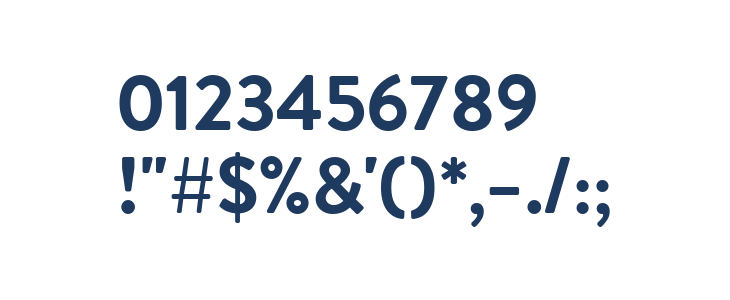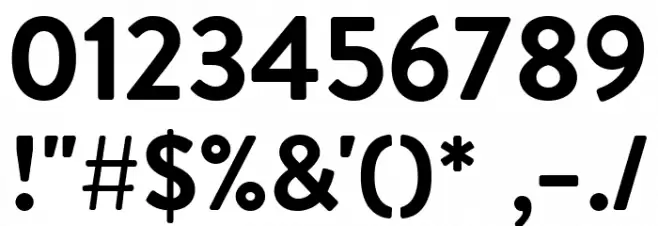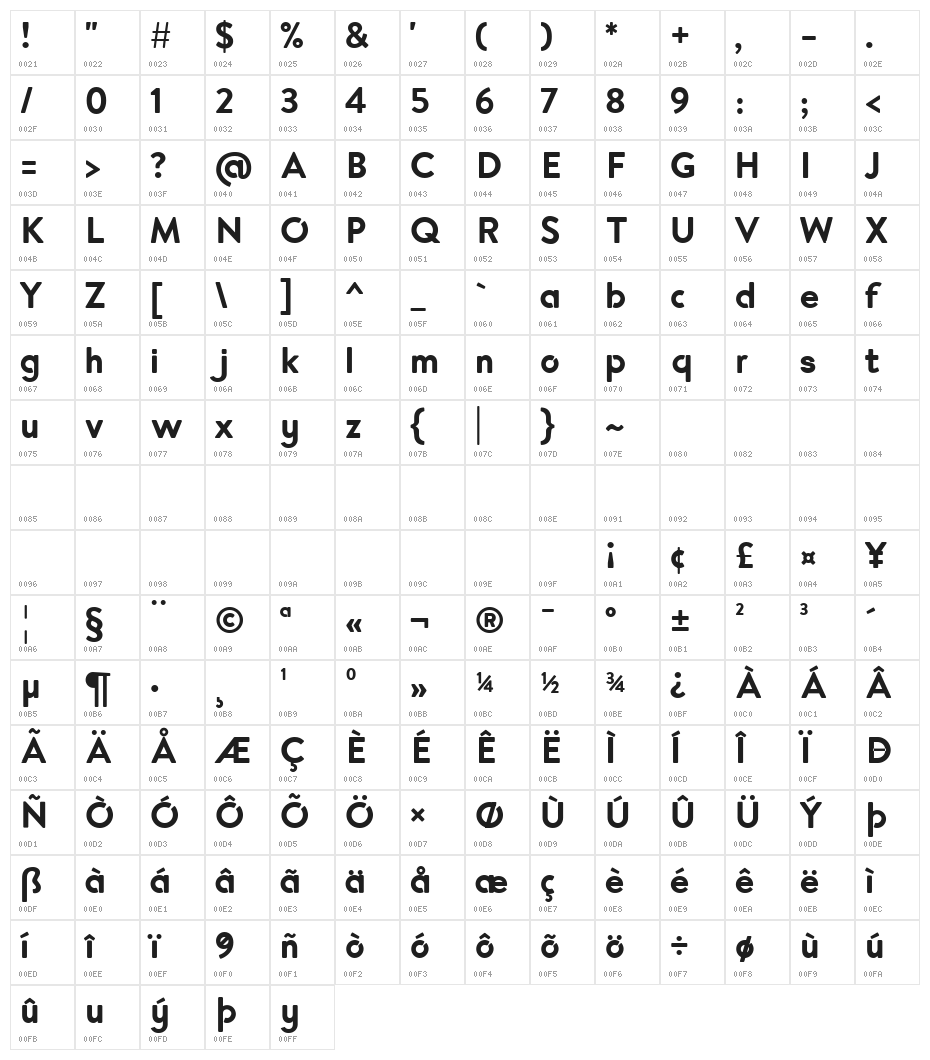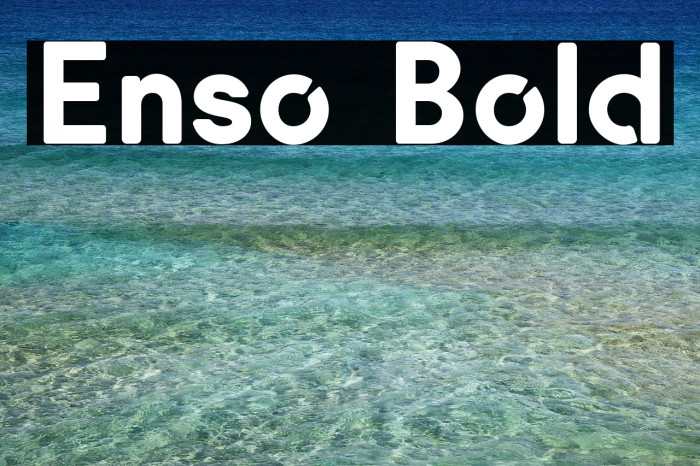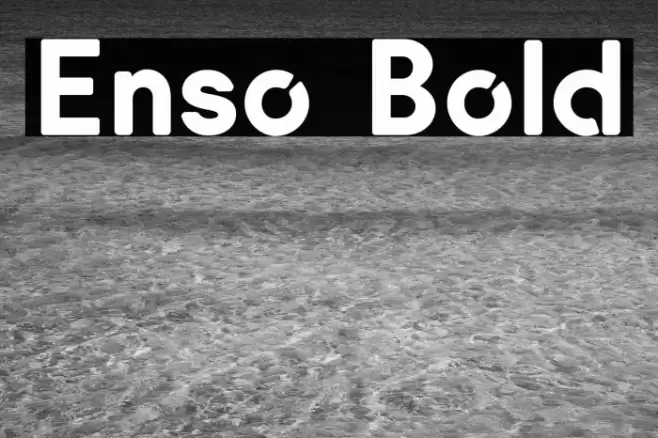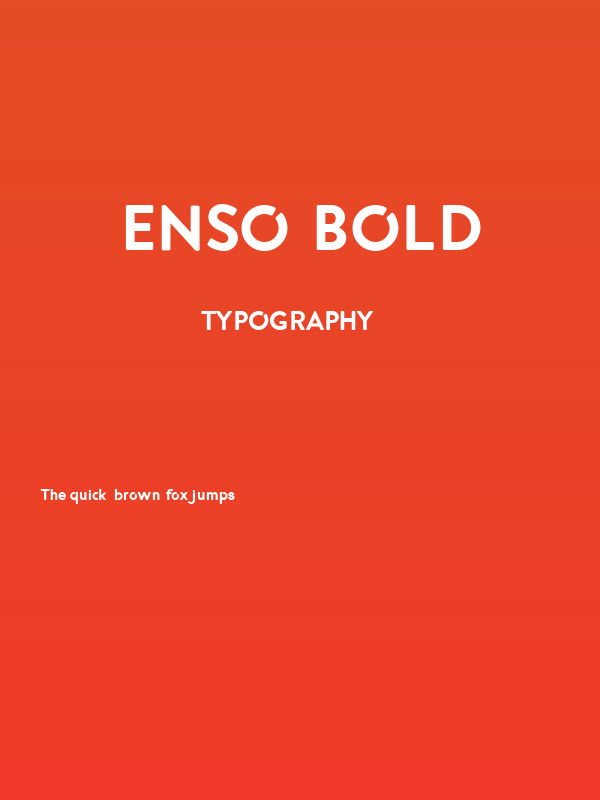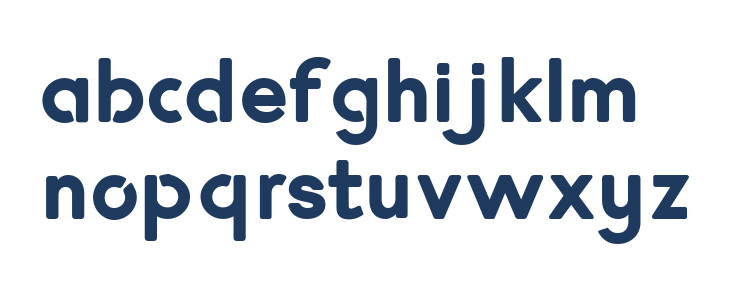
Enso Bold Font
Enso Bold Description
This font features a bold, rounded sans-serif style with a modern and clean appearance. The characters are evenly weighted, providing a uniform look across both uppercase and lowercase letters. The rounded edges give it a friendly and approachable feel, making it suitable for a variety of design projects. The numerals and special characters maintain the same boldness and rounded style, ensuring consistency throughout. The font's simplicity and clarity make it highly legible, even at smaller sizes, while its boldness ensures it stands out in larger formats.
| Proposed Projects | Ideal for branding, headlines, posters, and digital media where a modern and approachable look is desired. |